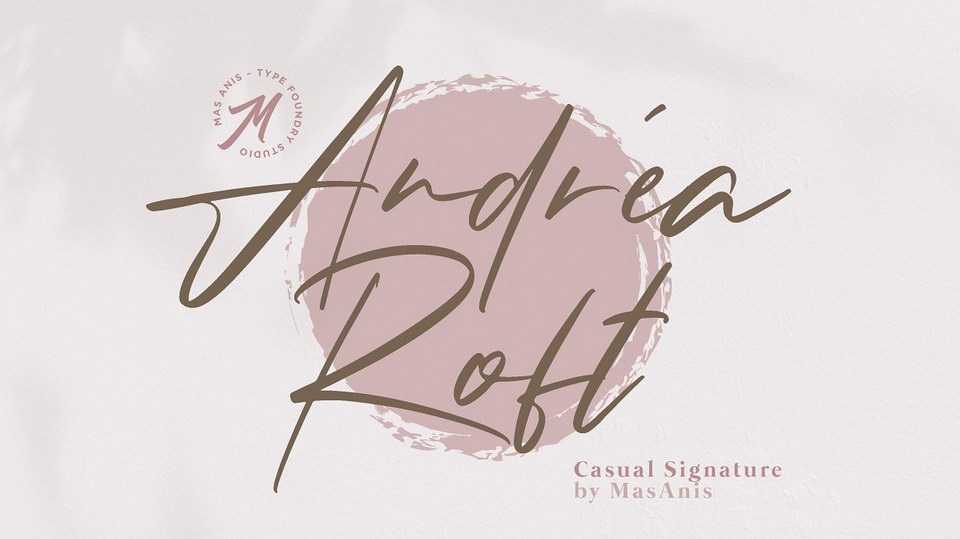
Download Andrea Roft font, a casual signature style handwritten script. Andrea Roft font is perfect for logo, invitation, stationery, wedding designs, social media posts, ads, label, photography, watermark, special events and more.
Designer: Mas Anis Studio